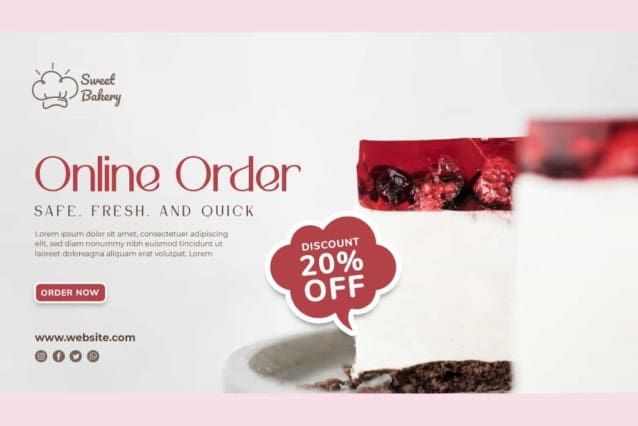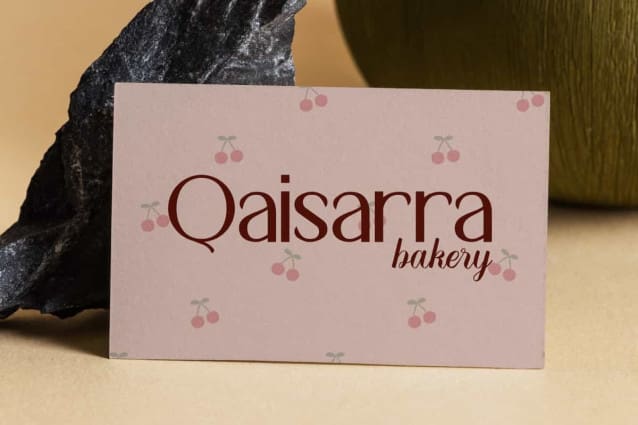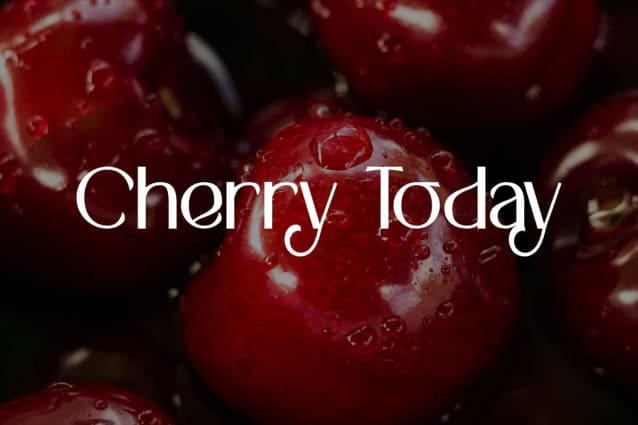
Cherry Today Font
Cherry Today Font is a beautiful modern stylish sans display font. The font has a beautiful shape and will never get old because it always impresses anyone and will be perfect for many design, such as brochure, business card, custom design, cover, gift box, invitation, label, poster, product packaging, quote, screen printing, stationery, website, and more!
Cherry Today Font includes full set of Uppercase and Lowercase Basic Characters, Numerals, and Punctuation. This sleek and minimalist font is suitable for industries, such as advertisement, bakery, café, fashion, furniture, handicraft, photography, resort, restaurant, spa and salon, etc.